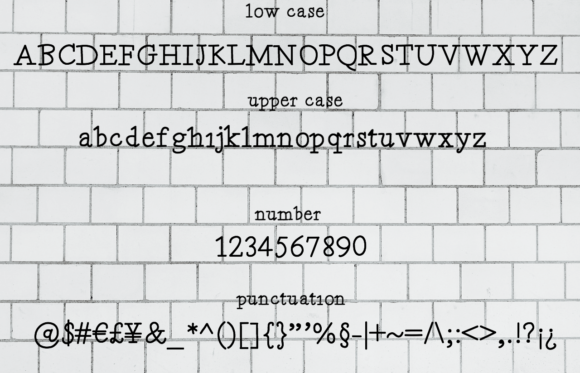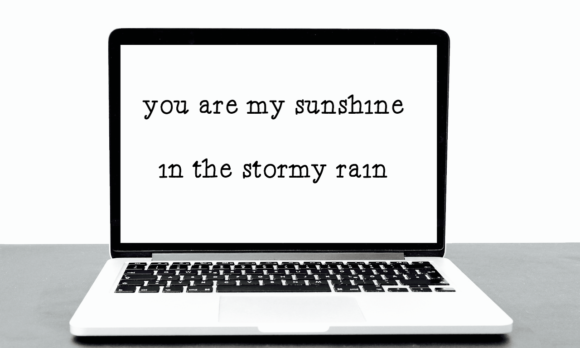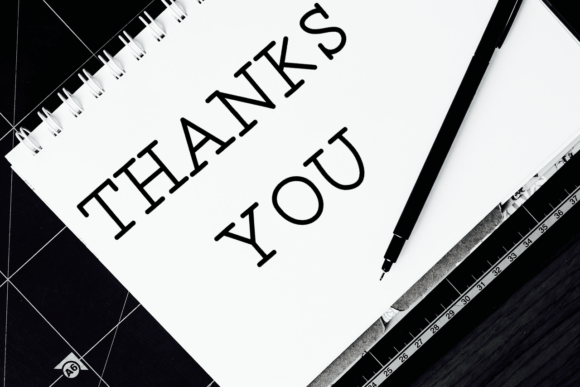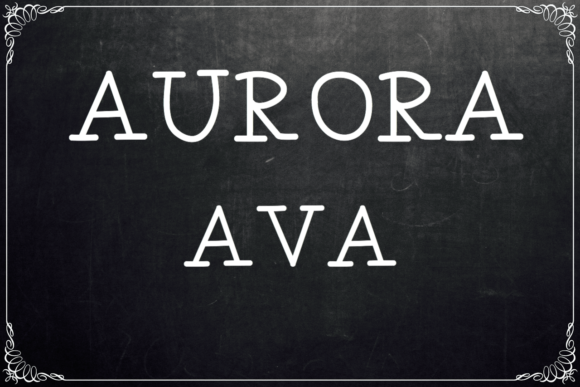
Aurora Ava Font: Elevate Your Designs with a Touch of Elegance
In the world of typography, fonts play a crucial role in making or breaking a design. A well-chosen font can elevate a project from ordinary to extraordinary, while a poorly chosen one can have the opposite effect. If you’re a designer, crafter, or simply someone who appreciates beautiful typography, you’re in luck. Introducing Aurora Ava Font, a stunning serif font that is sure to take your designs to the next level.
The Birth of Aurora Ava Font
Aurora Ava Font is the result of a unique pairing of a brush pen and pencil, which gives it an incredibly endearing and authentic look. This distinctive combination of tools has resulted in a font that is both elegant and approachable, making it perfect for a wide range of design projects. Whether you’re working on branding, headings, wedding designs, invitations, signatures, logos, labels, or any other type of project, Aurora Ava Font is sure to impress.
What Makes Aurora Ava Font Special?
Aurora Ava Font is more than just a pretty face. It’s a versatile and interesting serif font that can add a touch of elegance and sophistication to any design. Here are just a few reasons why Aurora Ava Font stands out from the crowd:
• Unique and Authentic Look: The brush pen and pencil combination gives Aurora Ava Font a one-of-a-kind look that is both authentic and endearing.
• Highly Versatile: Aurora Ava Font is suitable for a wide range of design projects, from branding and headings to wedding designs and invitations.
• Elegant and Sophisticated: The serif design of Aurora Ava Font adds a touch of elegance and sophistication to any project.
Uses for Aurora Ava Font
Aurora Ava Font is a highly versatile font that can be used in a variety of design projects. Here are just a few ideas to get you started:
• Branding: Use Aurora Ava Font to create a unique and memorable brand identity that stands out from the crowd.
• Wedding Designs: Add a touch of elegance and sophistication to your wedding designs, including invitations, programs, and signage.
• Headings and Titles: Use Aurora Ava Font to create stunning headings and titles that grab attention and add visual interest.
• Invitations and Stationery: Create beautiful and unique invitations, stationery, and greeting cards with Aurora Ava Font.
• Logos and Labels: Use Aurora Ava Font to create custom logos and labels that add a touch of elegance and sophistication to your products.
Tips for Using Aurora Ava Font
To get the most out of Aurora Ava Font, here are a few tips to keep in mind:
• Use it as a Headline Font: Aurora Ava Font is perfect for use as a headline font, where its unique and elegant design can really shine.
• Pair it with a Sans-Serif Font: For body text, consider pairing Aurora Ava Font with a clean and simple sans-serif font to create visual interest and contrast.
• Experiment with Colors and Textures: Don’t be afraid to experiment with different colors and textures to add depth and visual interest to your designs.
In conclusion, Aurora Ava Font is a stunning serif font that is sure to elevate your designs to the next level. With its unique and authentic look, high versatility, and elegant design, it’s perfect for a wide range of design projects. Whether you’re a designer, crafter, or simply someone who appreciates beautiful typography, Aurora Ava Font is a must-have addition to your font collection. So why wait? Download Aurora Ava Font today and start creating gorgeous and timeless designs that will leave a lasting impression.